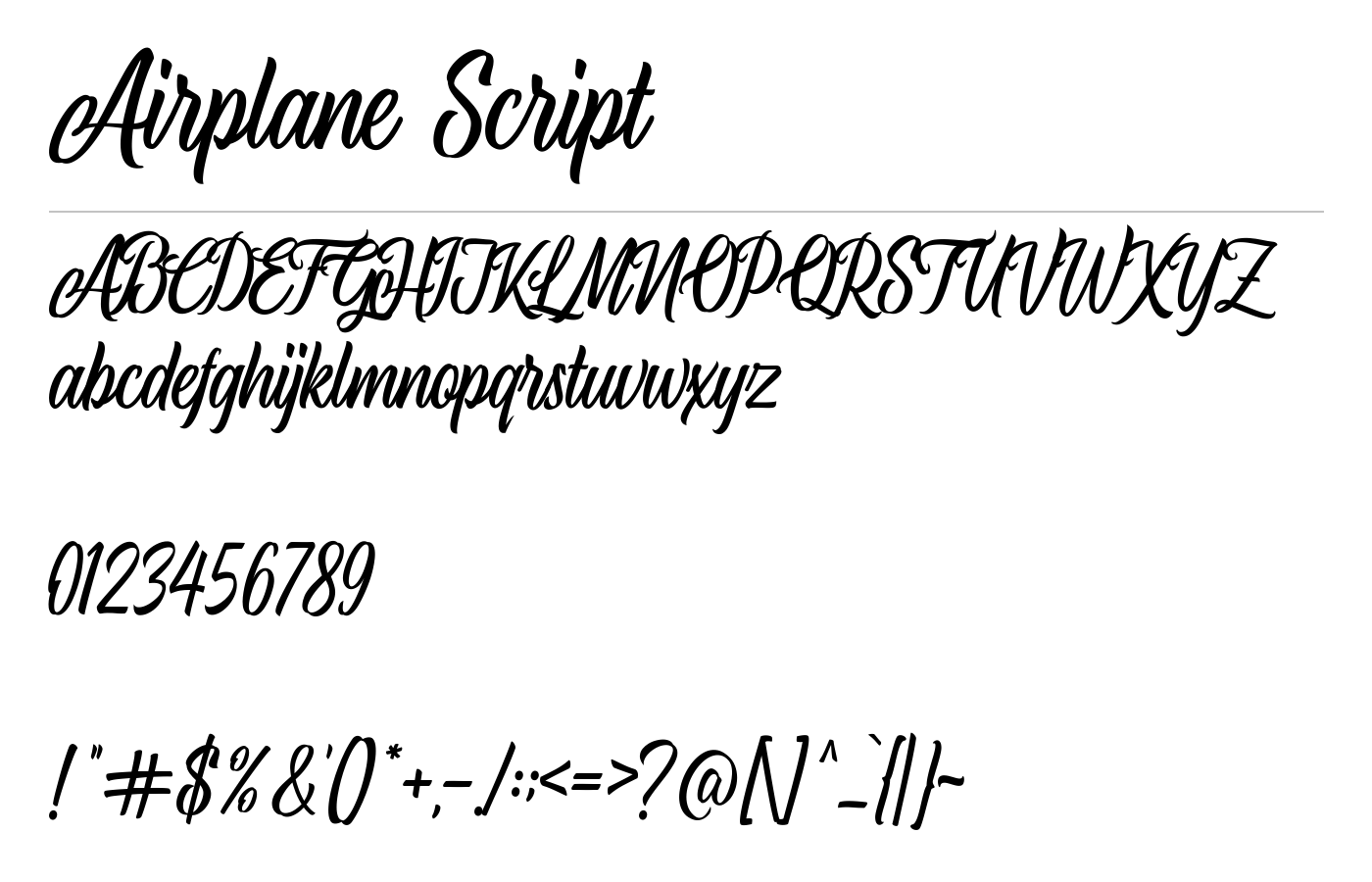
Airplane Script is a stylish, cursive script font with a smooth, flowing character that combines elegance with a touch of vintage charm. Its slender weight and moderate contrast give it a refined and airy feel, making it perfect for logos, invitations, and branding where a graceful, handcrafted look is desired. This font works beautifully for creative projects that aim to evoke sophistication with a modern twist.
Airplane Script Font